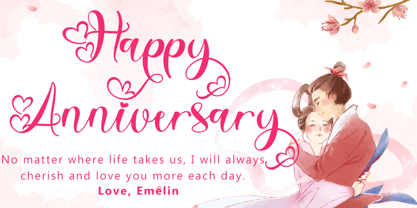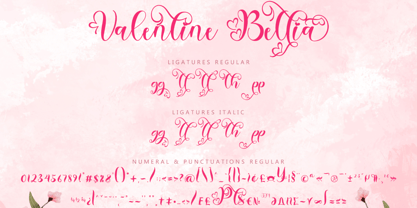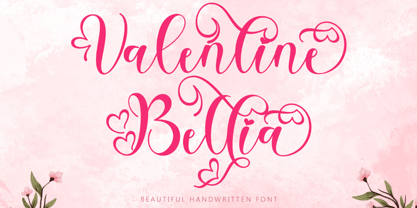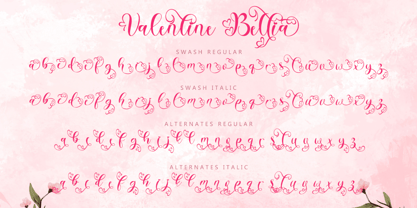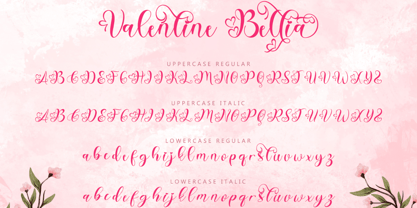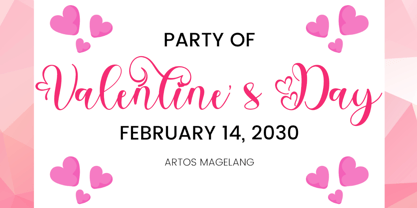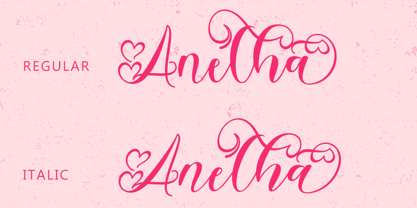
Valentine Bellia
by Yoga Letter
The Valentine Bellia Font Family was designed by Isroni Yoga Prasetya and published by Yoga Letter. Valentine Bellia contains 2 styles and family package options. More about this family
"Valentine Bellia" is a beautiful and elegant handwritten font. This font has regular and italic versions with uppercase, lowercase, ligatures, numerals, punctuations, multilingual support, alternates and swashes. This font is perfect for weddings, invitations, valentines, christmas, spring, winter and more.
Designers: Isroni Yoga Prasetya
Foundry: Yoga Letter